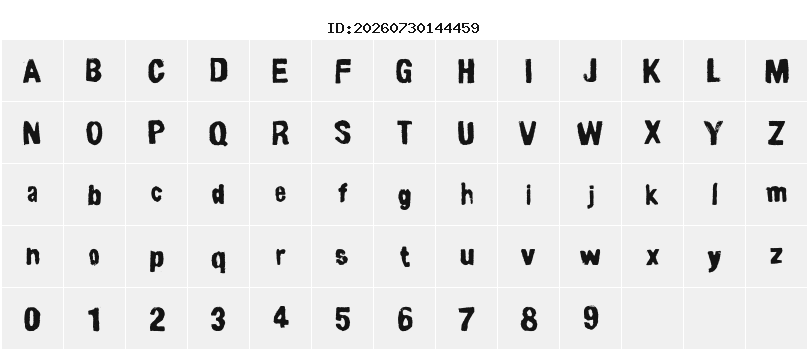
lino-set Preview
• Font Name: lino-set
• Full Font Name: lino-set
About lino-set.ttf
lino-set.ttf is a modern, elegant sans-serif font designed for ultimate readability and visual harmony. Perfect for branding, headlines, web design, and print materials.